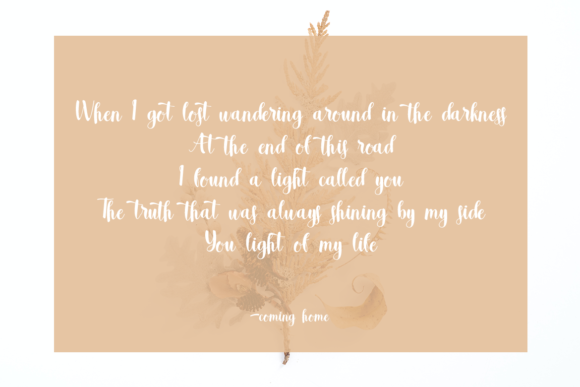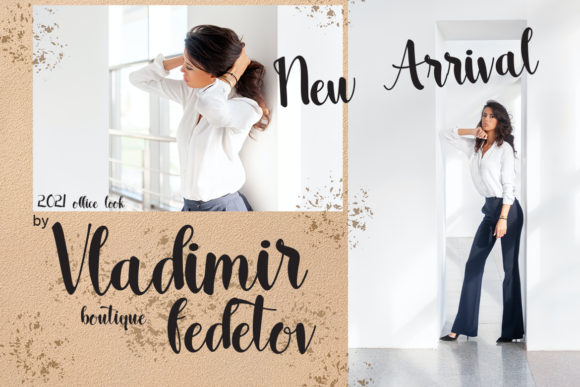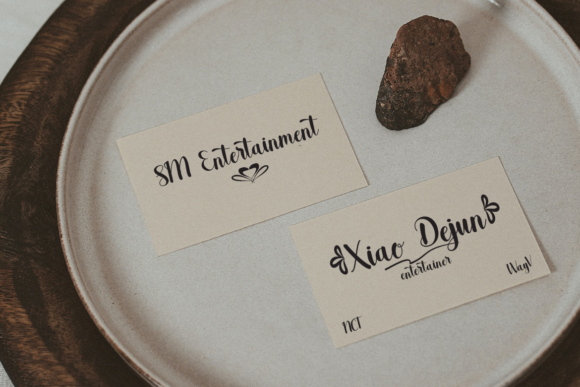
Introduction to Anthracite Font
Anthracite is a whimsical script font with a relaxed theme, featuring a lovely style.
No matter the topic, this font will be an incredibly asset to your fonts’ library, as it has the potential to elevate any creation .
Anthracite Font offers exceptional quality and versatility, making it a valuable addition to your design toolkit. Whether you’re creating for personal projects or commercial use, Anthracite Font delivers professional results.